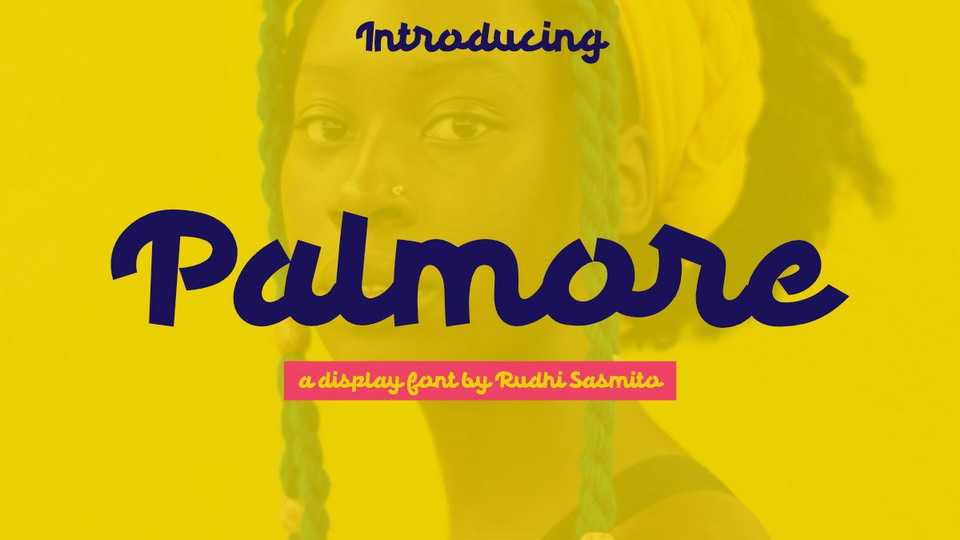
Download Palmore font, a display script font that looks funny, cute, playful, catchy and easy to use. Best choice for your professional design projects.
Designer: Rudhi Sasmito